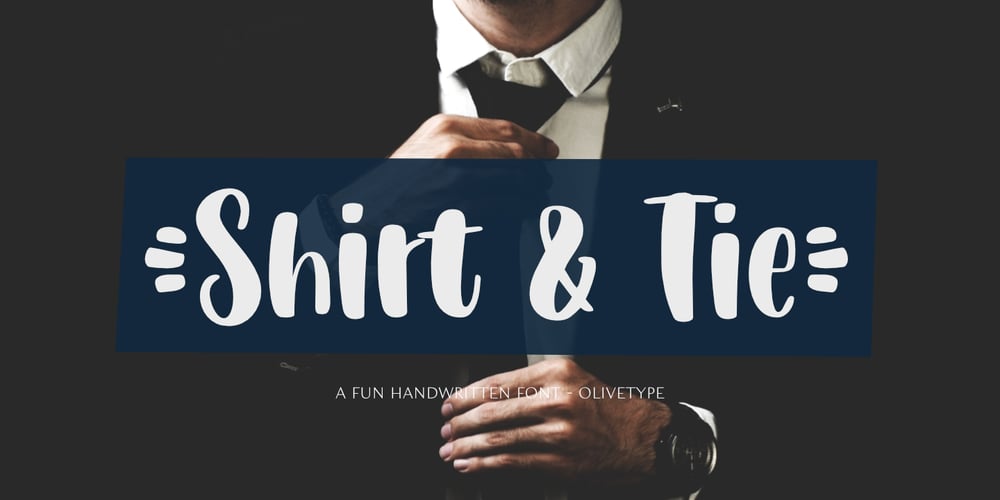
Shirt & Tie
Shirt & Tie font
Shirt & Tie Font Family was designed by Nurul Hidayani and published by Olivetype. Shirt & Tie contains 1 styles and family package options. Shirt & Tie is a cool, trendy looking handwritten font. This font looks fun and authentic, and it will enhance the quality of each of your posters, flyers, or print.This font is also supporting Multi-Languages, which includes: Afrikaans Albanian Catalan Danish Dutch English Estonian Finnish French German Italian Norwegian Portuguese Spanish Swedish Zulu.Thank You.